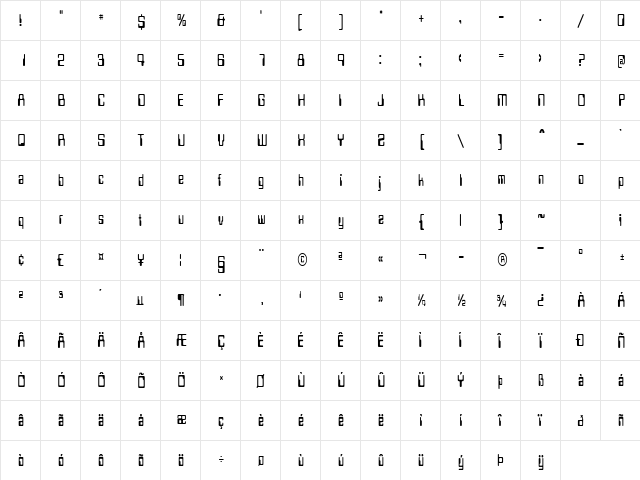
LoganCondensed Regular Font Preview
LoganCondensed Regular
LoganCondensed Regular Font Details
Design Context for LoganCondensed Typeface
LoganCondensed is a composed and adaptable typeface that performs quietly and consistently across a wide range of design contexts. Its narrow stance lets it pack a punch even in space-constrained designs.